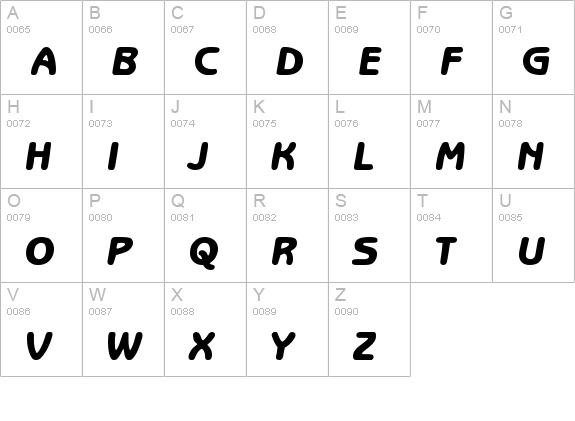
Tubular Regular is the standard, neutral variant in the Tubular typeface family \xE2\x80\x94 well suited to general body text, paragraphs, and standard typographic work.
Tubular Regular is a versatile and modern font that exudes a sense of confidence and style. Its sleek and streamlined design is perfect for a wide range of creative projects, from branding and advertising to web design and packaging. With its clean lines and balanced proportions, Tubular Regular adds a touch of sophistication to any composition. One of the best features of Tubular Regular is that it is available for free. Yes, you heard that right – this amazing font can be downloaded at no cost from FontsMarket.com. This means that you can elevate your designs without breaking the bank. Whether you're a professional designer or an aspiring creative, Tubular Regular offers you the opportunity to enhance your projects with elegance and professionalism, without having to spend a dime. The character set of Tubular Regular is extensive, boasting a wide range of uppercase and lowercase letters, numerals, punctuation marks, and special characters. This makes it easy to create eye-catching headlines, captivating body text, and stunning logos that leave a lasting impression. The versatility of Tubular Regular is further enhanced by its compatibility with various design software and platforms. Whether you work with Adobe Creative Suite, Microsoft Office, or any other popular design tool, you can seamlessly integrate Tubular Regular into your workflow. So why wait? Download Tubular Regular today from FontsMarket.com and unleash your creativity. With its sleek and modern design, extensive character set, and the fact that it's available for free, Tubular Regular is a must-have font for any designer looking to make a bold statement. Elevate your designs and grab attention with Tubular Regular – the font that combines style, versatility, and affordability.